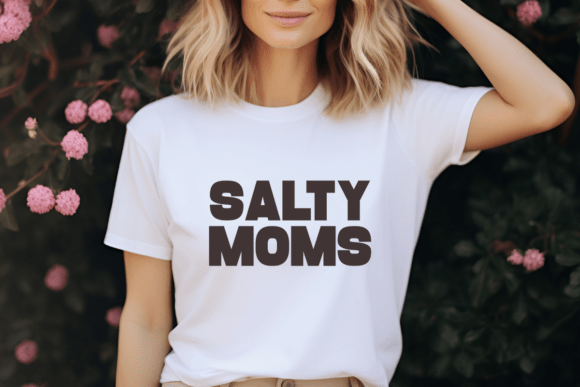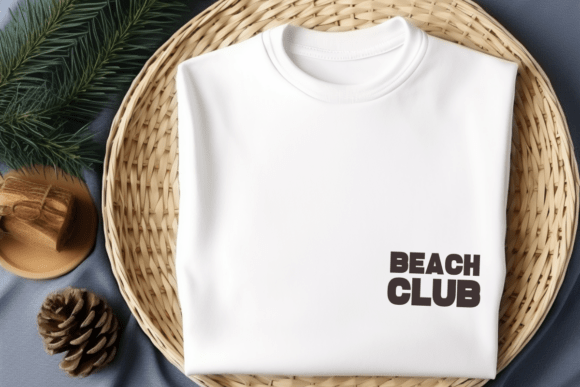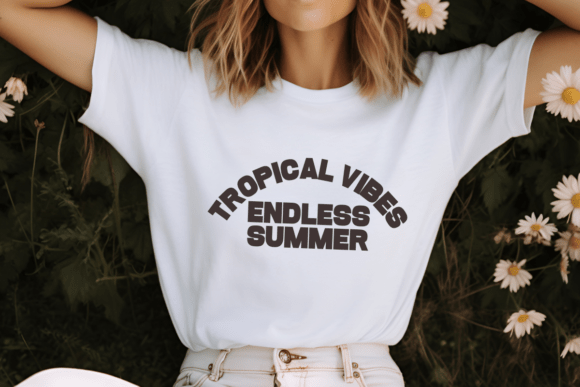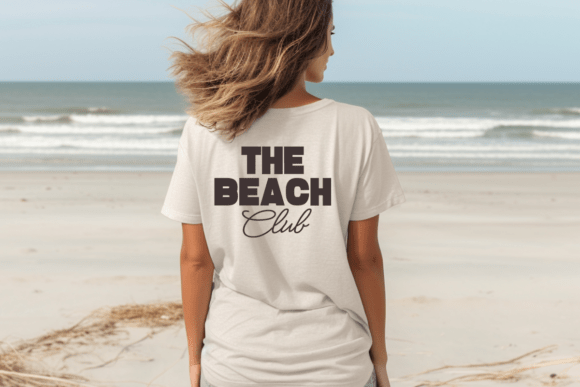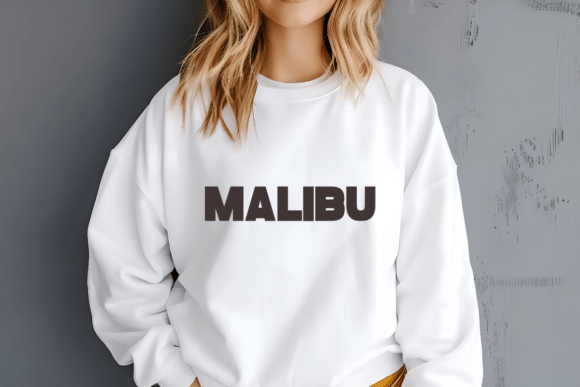
Introduction to Salty Sunday Font Font
Fonts play a crucial role in design, and the Salty Sunday Font font is a typeface that brings both character and versatility to any project. Whether you’re working on a branding project, a website, or a print design, the Salty Sunday Font font offers a unique style that can elevate your work.
| 📌 Font Name | Salty Sunday Font |
| 👤 Author | CraftedType Studio |
Salty Sunday is a bold and powerful sans serif font designed for creators who want to make a statement.
With its thick, impactful strokes and clean geometric lines, this font is engineered for maximum visibility and modern appeal Whether you are working on high-end branding or trendy Print On Demand merchandise, Salty Sunday delivers a professional and energetic vibe to any project.
Key Features of Salty Sunday Font Font
Why Choose Salty Sunday Font Font?
The Salty Sunday Font font is more than just a typeface – it’s a design tool that helps you communicate your message with style and clarity. Its unique character set and versatile design make it suitable for a wide range of applications, from elegant invitations to bold headlines.
With its carefully crafted letterforms and balanced proportions, the Salty Sunday Font font ensures readability and visual appeal across all mediums.
What makes Salty Sunday Font font special?
The Salty Sunday Font font stands out with its unique design, exceptional readability, and versatility across various design applications.